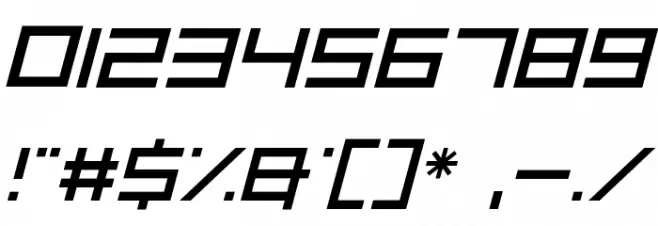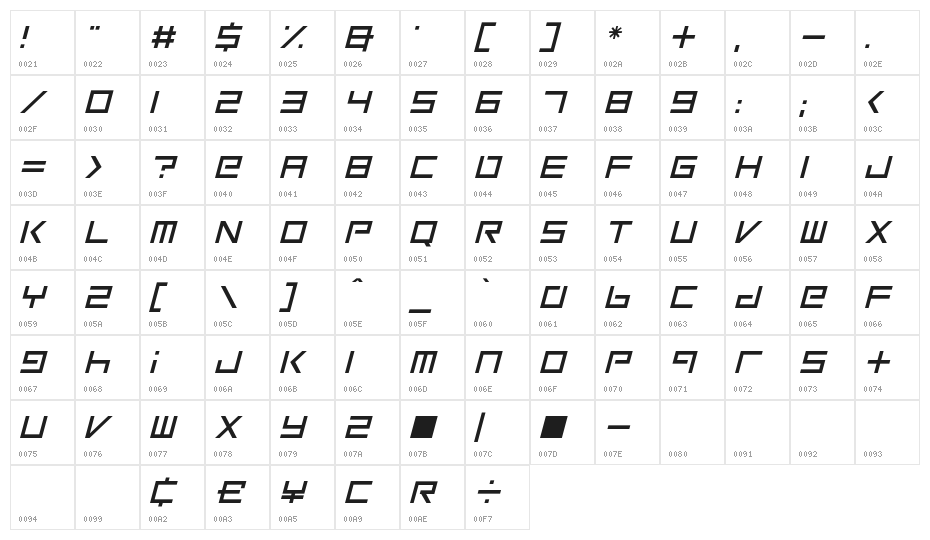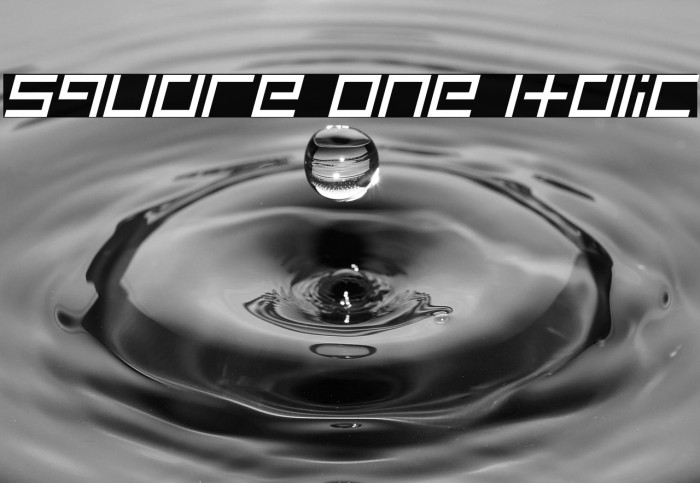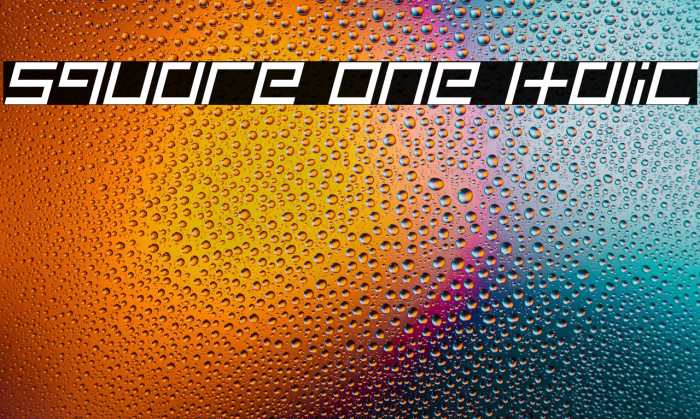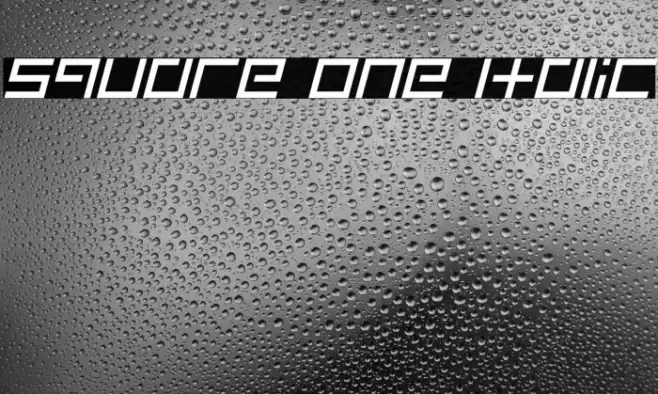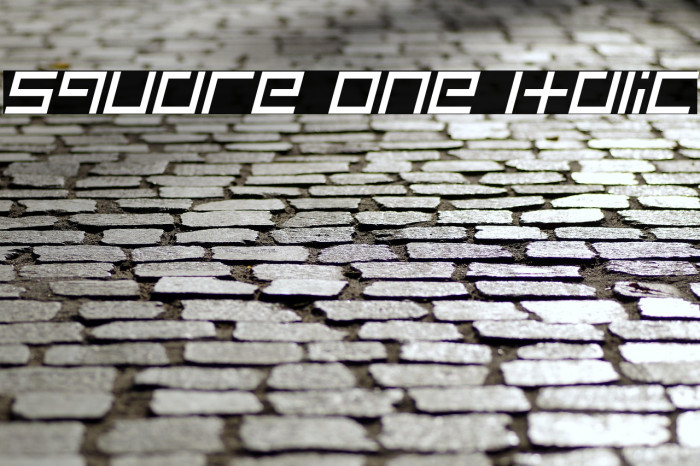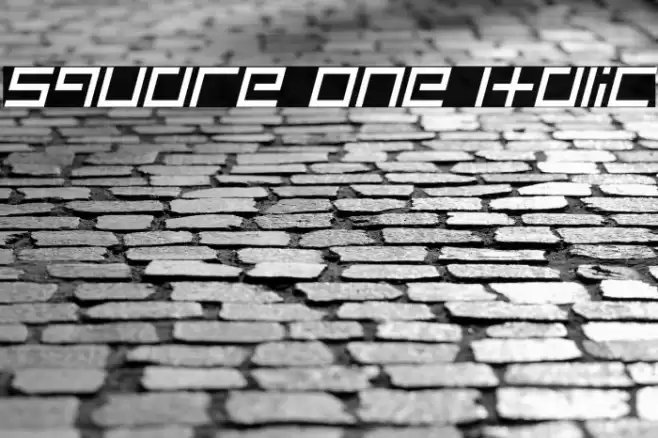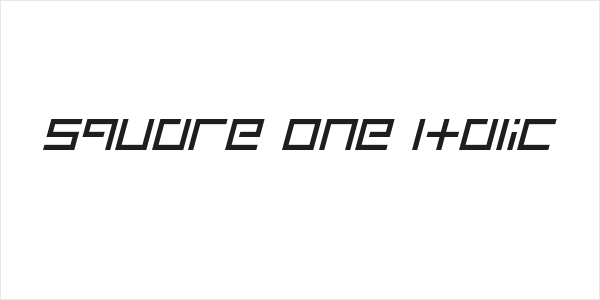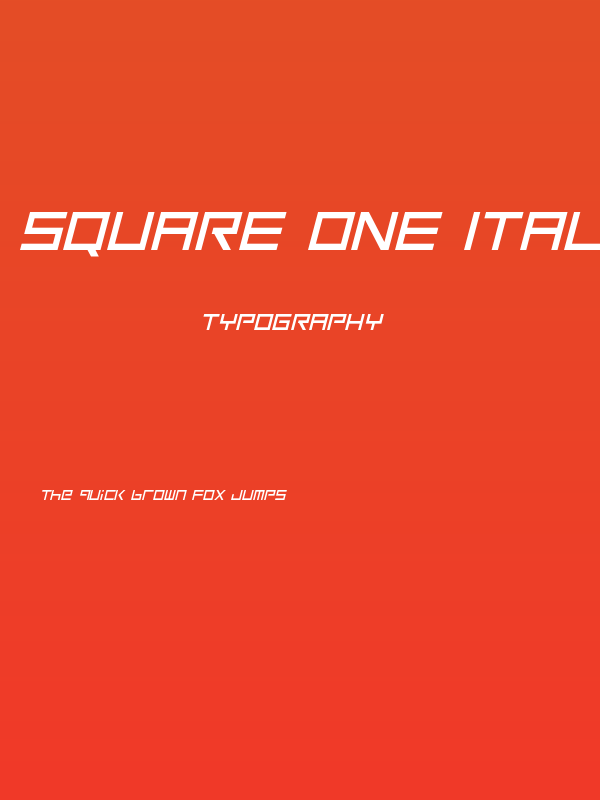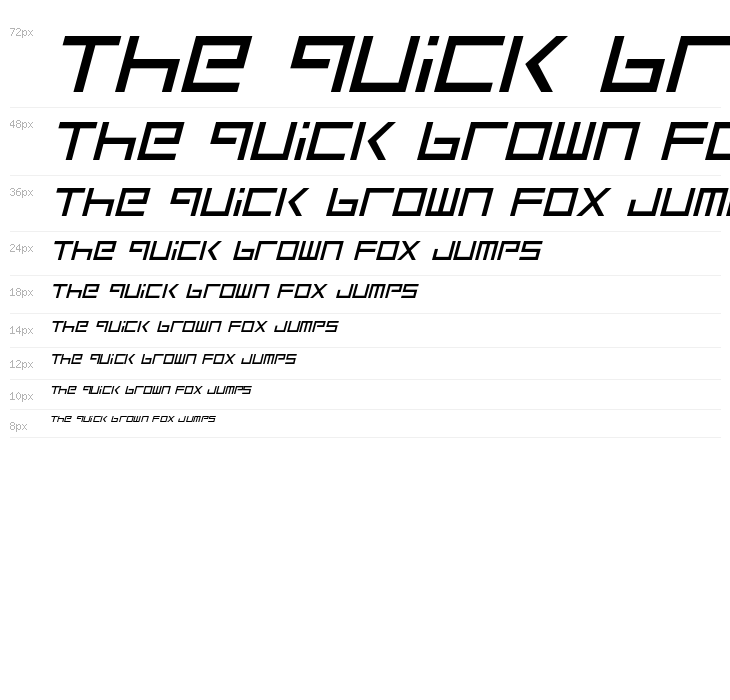
Square One Italic Font
Square One Italic Description
This font features a distinct geometric style with angular, italicized characters that convey a sense of modernity and dynamism. The letters are constructed with sharp edges and consistent line thickness, giving it a futuristic and technical appearance. The uppercase and lowercase letters maintain a uniform height, enhancing readability while preserving the unique design. The numerals and special characters follow the same angular theme, ensuring a cohesive look across all glyphs. This font's bold and structured form makes it suitable for projects that require a strong visual impact.
| Proposed Projects | Ideal for technology branding, sports team logos, futuristic posters, and video game titles. |